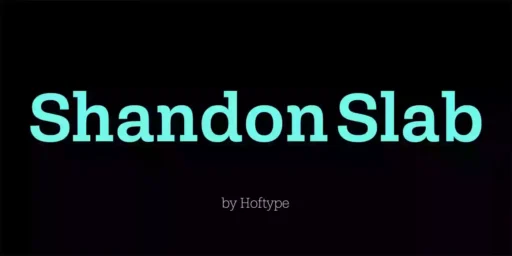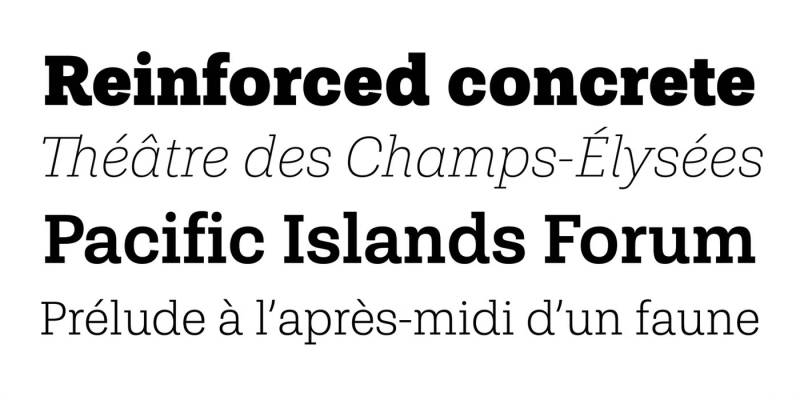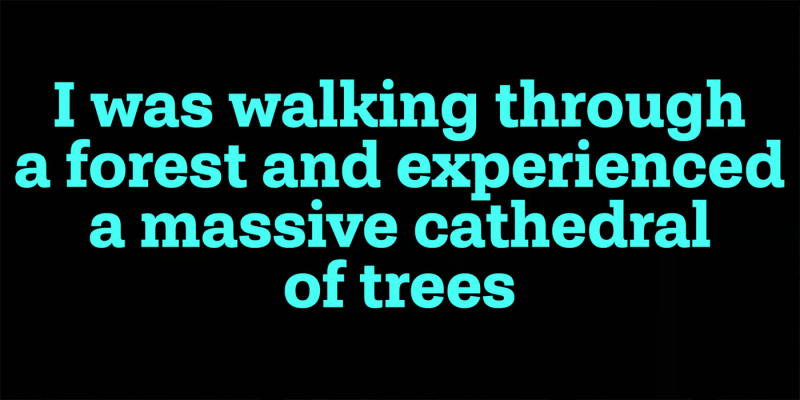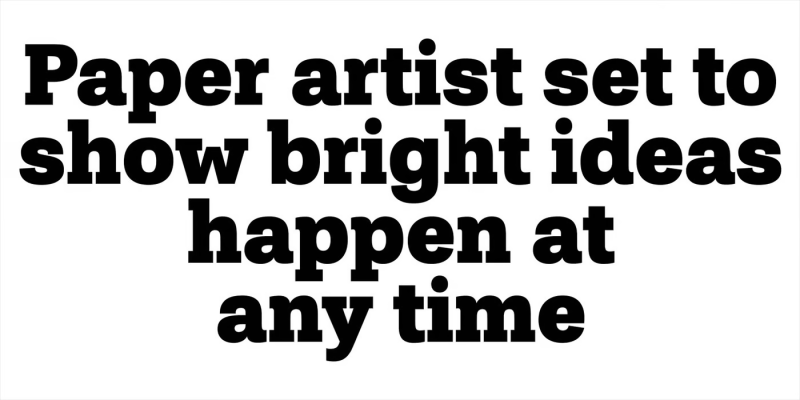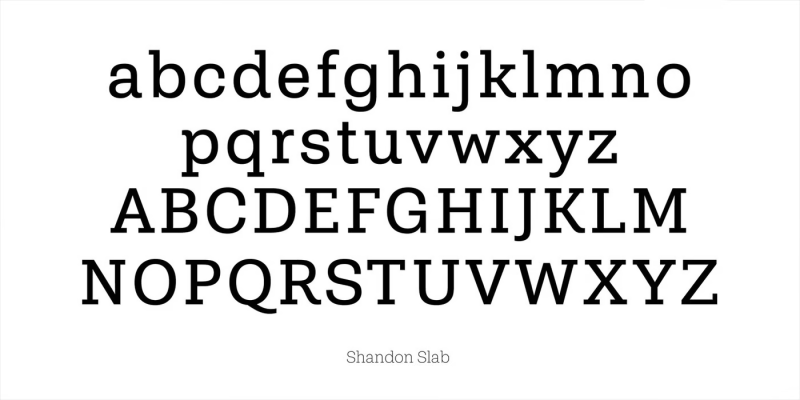
Shandon Slab Font Family
Shandon Slab is a new typeface that offers a new approach to the popular family of typefaces with the prevalence of serifs. Its distinguishing feature is that its features are characterized by a smooth transition, which is quite different from other fonts in the category. The use of the two different italic styles gives a lively emphasis to the design. Textbook display, especially for editorials, headlines, and any other application that is required to grab people’s attention, Shandon Slab is ideal. The font family has 18 styles, and it is presented in OpenType with the support of more than 40 languages. Standard and discretionary ligatures, proportional lining figures, tabular lining figures, proportional old-style figures, lining old-style figures, matching currency symbols, fraction and scientific numerals, matching arrows and alternate characters are provided in each weight.
Shandon Slab Font Family is a Slab Serif Fonts font that brings a professional and versatile look to your projects. Shandon Slab is a new typeface that offers a new approach to the popular family of typefaces with the prevalence of serifs.